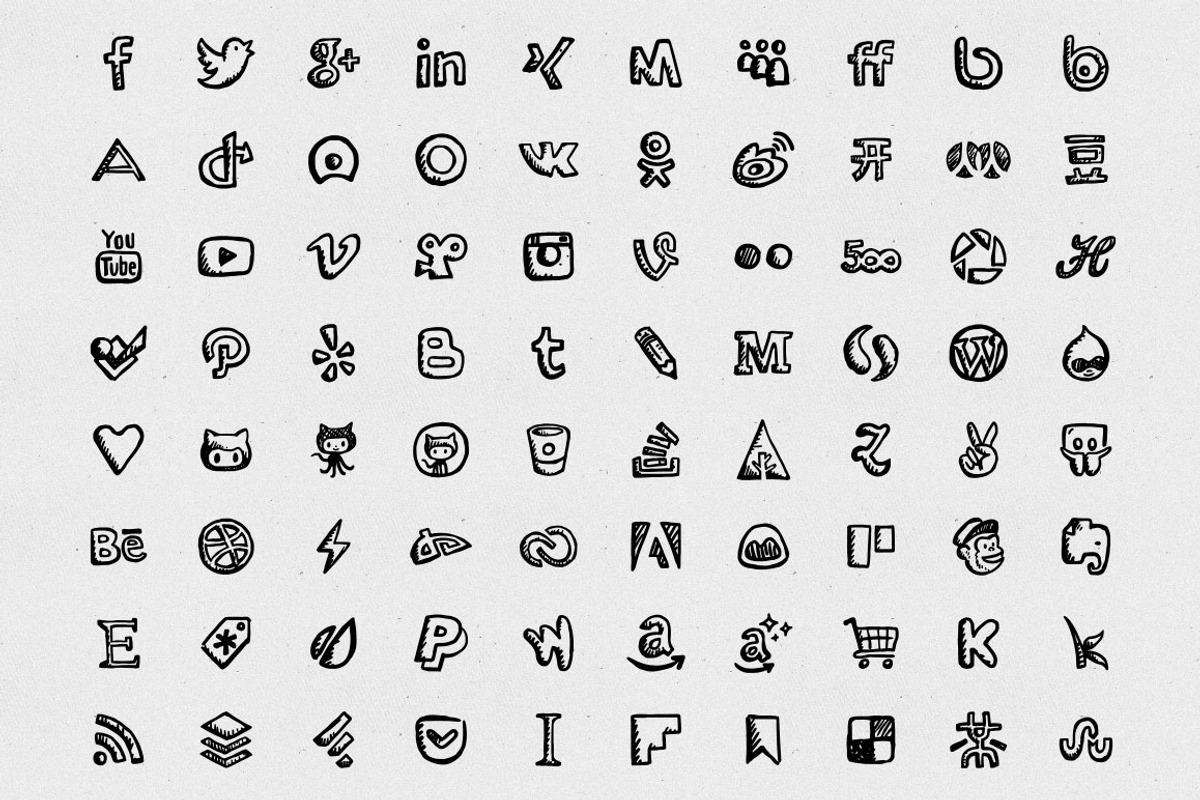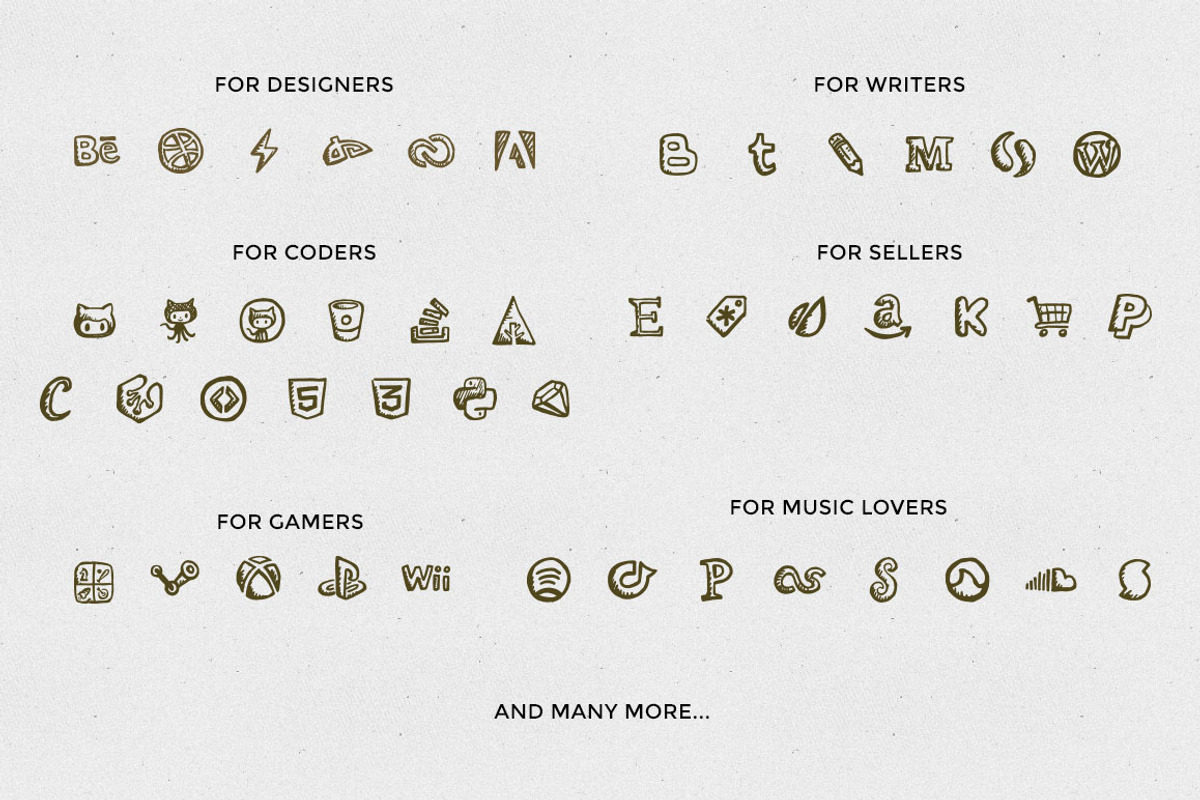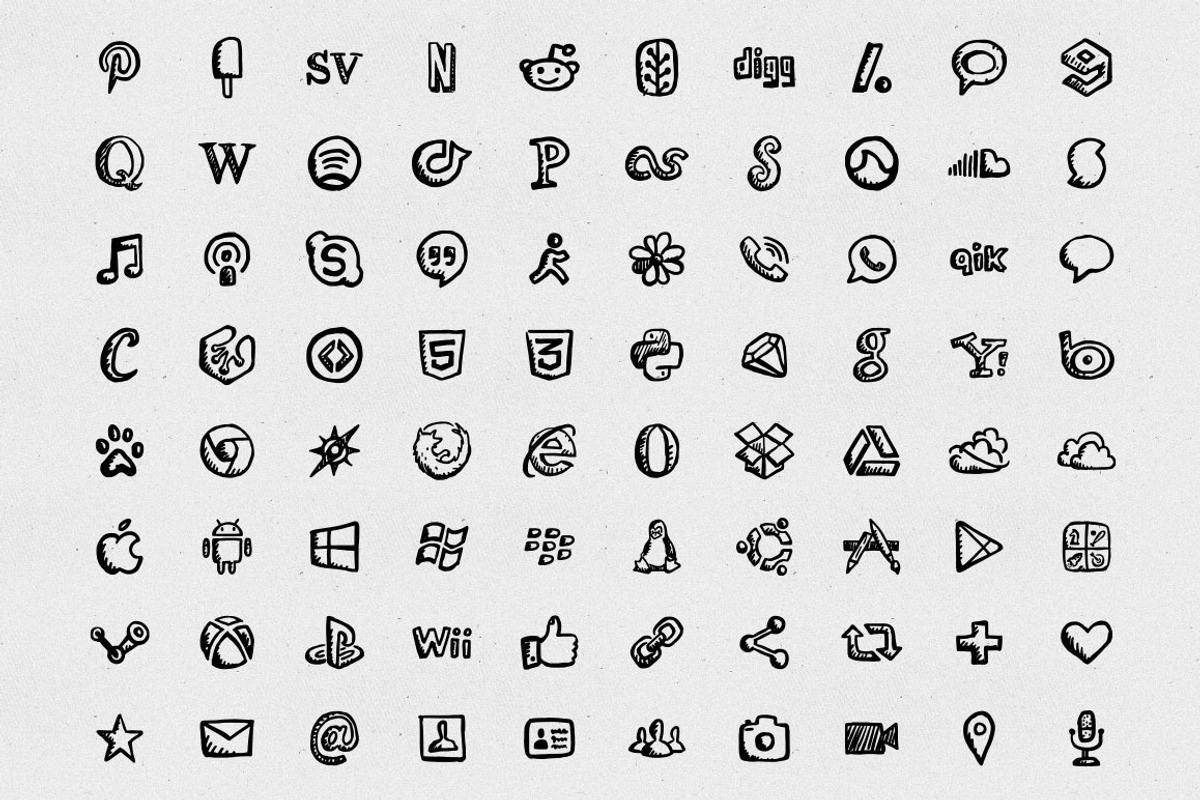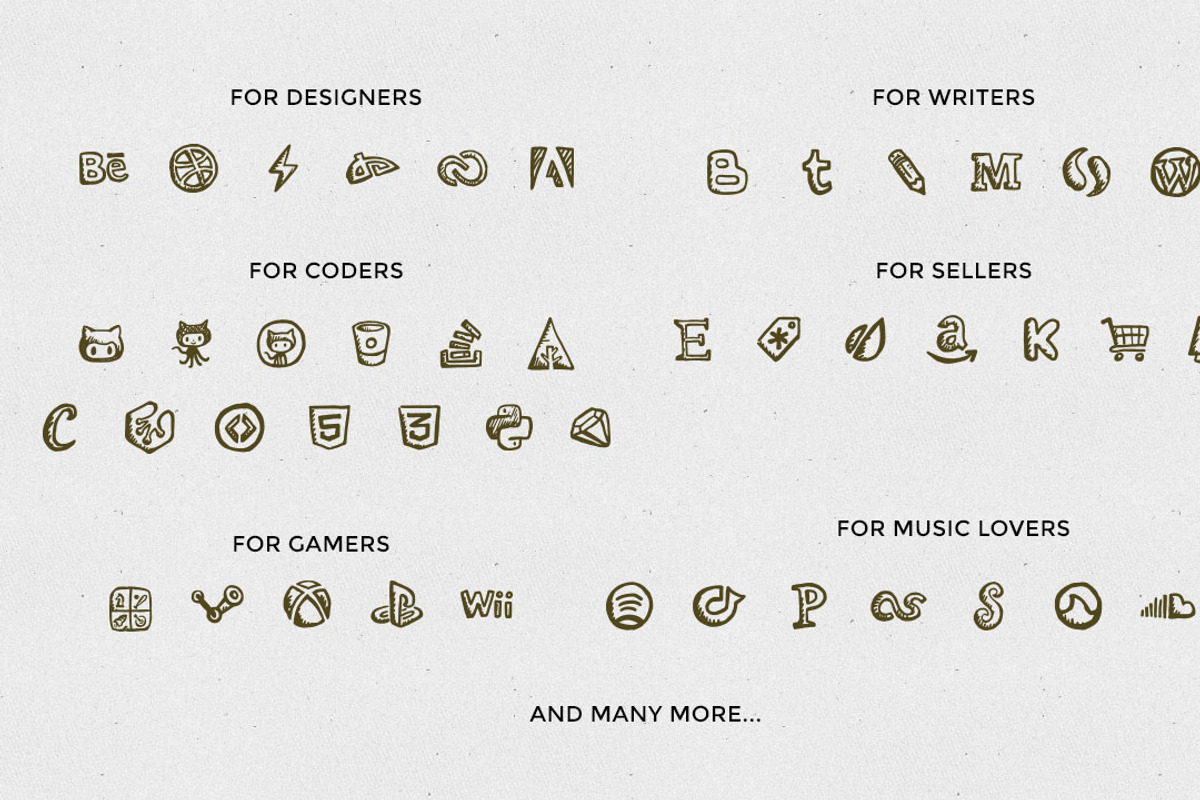
Friendly Icons Font
Friendly Icons Font by Hand-Drawn Goods is a font selected for branding, posters, packaging, typography.
- Social icon font includes160 hand-drawn icons featured in the original Friendly Icons set by Hand-Drawn Goods.
- Friendly Icons Font includes characters from the following categories: social networks, apps, platforms, messengers, cloud services, sharing
Why Friendly Icons Font is worth a look
Friendly Icons Font by Hand-Drawn Goods fits naturally into Branding, posters, packaging, typography.